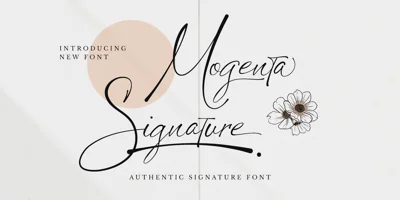
Mogenta Signature Font
Mogenta Signature Font is a beautiful and elegant script typeface designed to mimic natural handwriting with a modern twist. It’s perfect for wedding invitations, personal branding, social media graphics, beauty product packaging, and fashion logos—anywhere you want to express sophistication and class.
What makes Mogenta Signature Font so exciting is its flowing, graceful strokes and authentic handwritten charm. Each letter connects seamlessly, evoking a sense of intimacy and creativity that turns ordinary text into an elegant signature.
The Mogenta Signature Font family includes several variations such as Regular, Light, Bold, and Swash styles, giving you the flexibility to experiment with depth and emphasis in your designs.
Whether you're building a high-end brand or just adding a personal touch to your next project, Mogenta Signature Font offers a perfect balance of refinement and flair. Remember, while you can test it for free, commercial use requires a proper license. Give your designs a signature of style with Mogenta’s unique elegance.